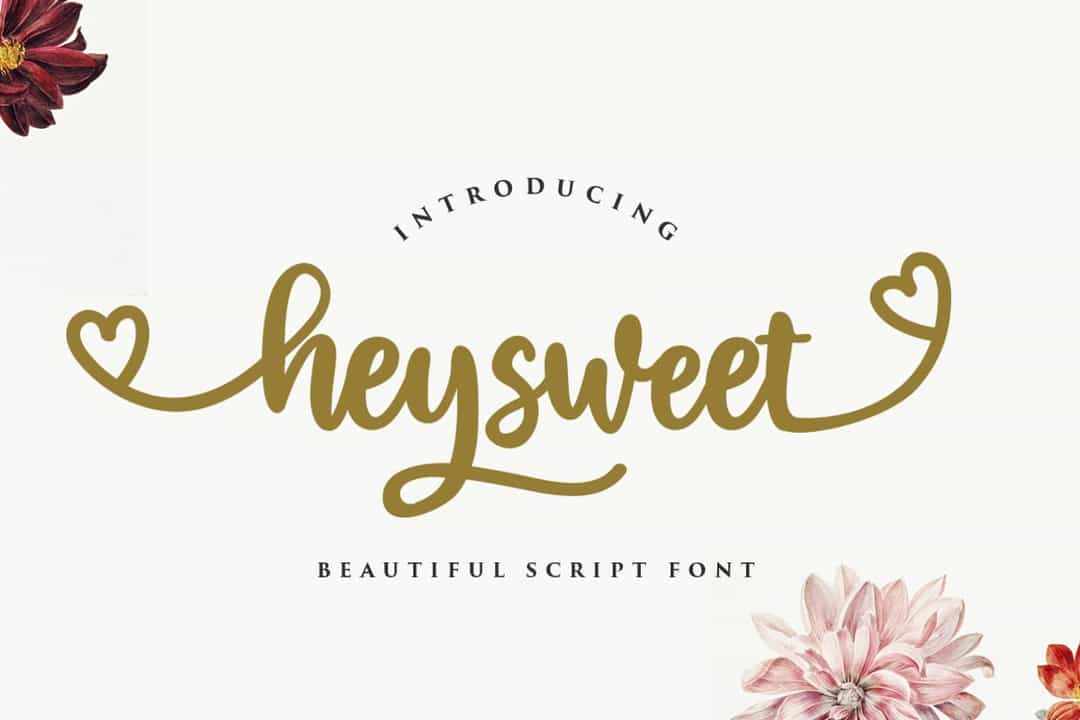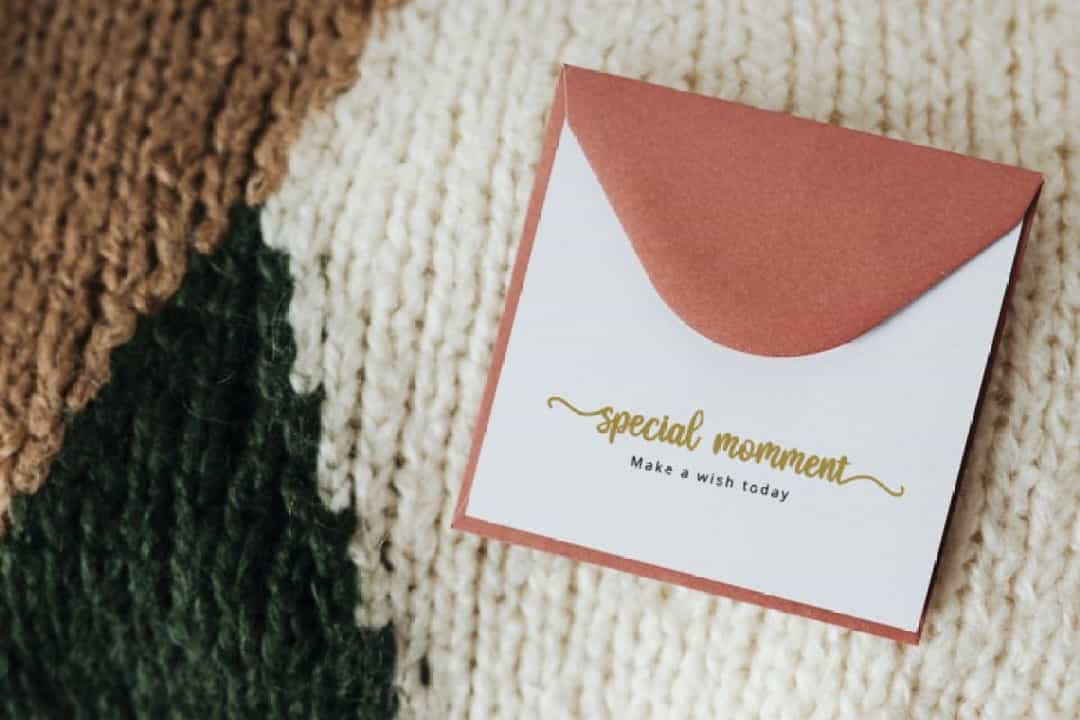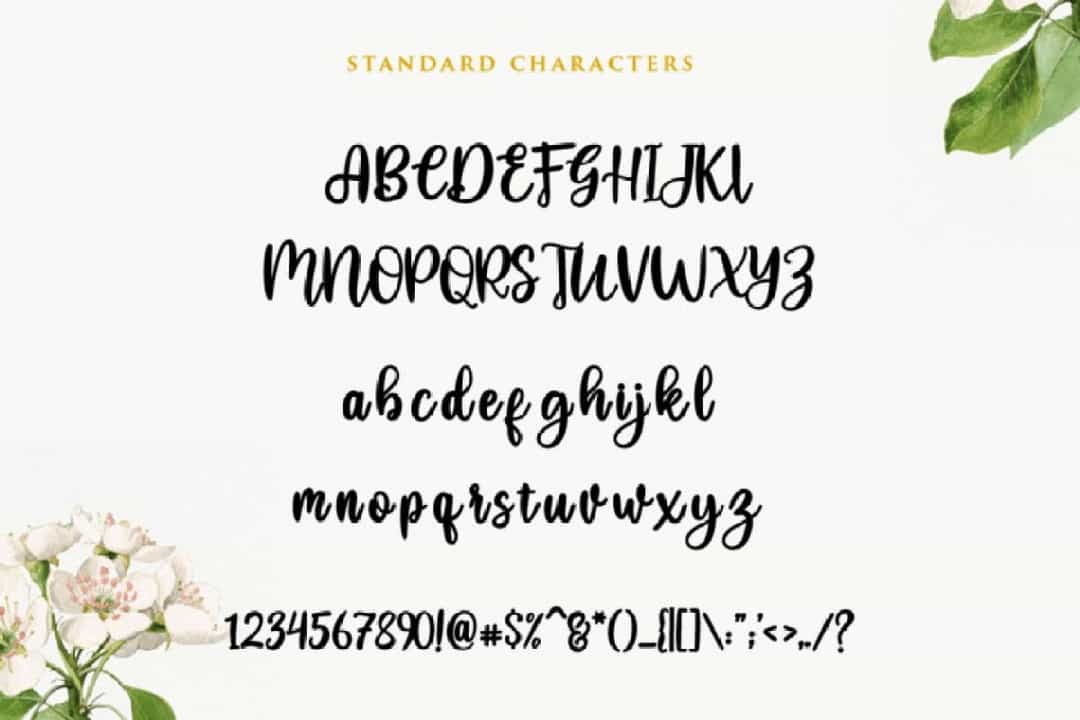
Heysweet Typography can be described as cute and elegant, which makes it perfect to use in creating wedding invitations, thank you cards with quotes, greeting cards, business cards, logos, or any other design that has the call for that handwritten look. Being PUA encoded, Heysweet enables users to see its characters easily!